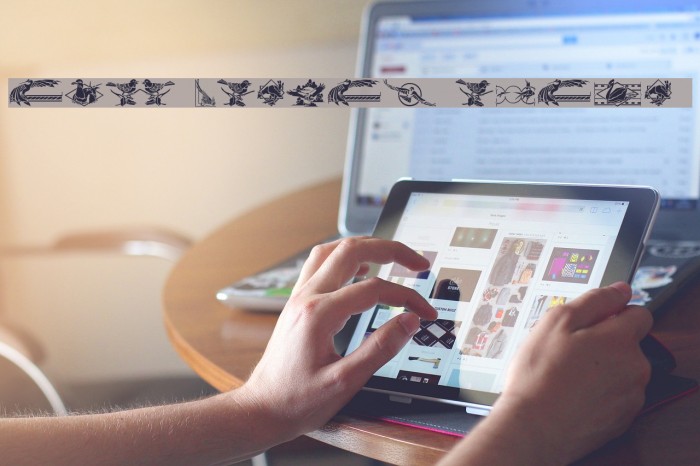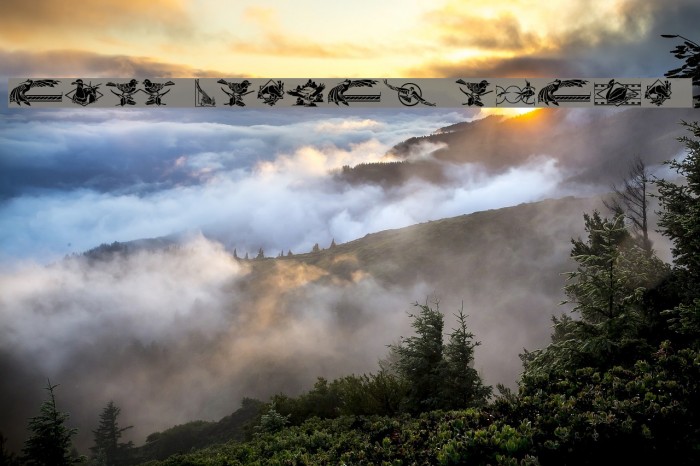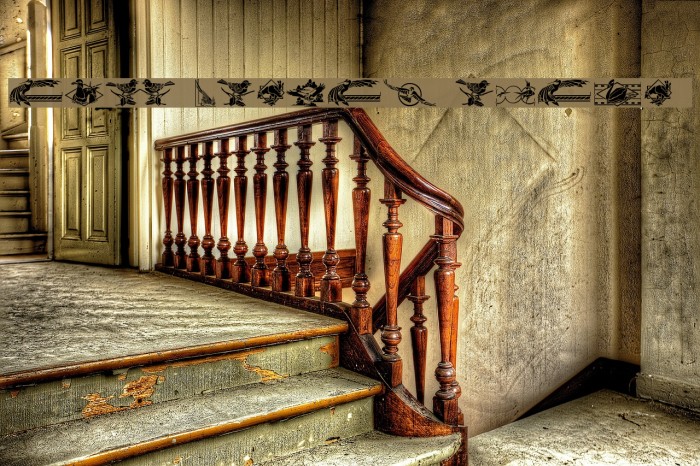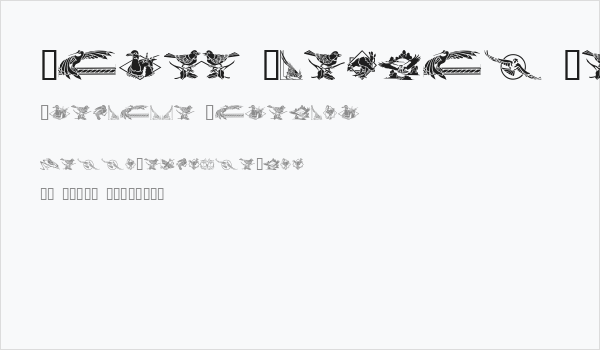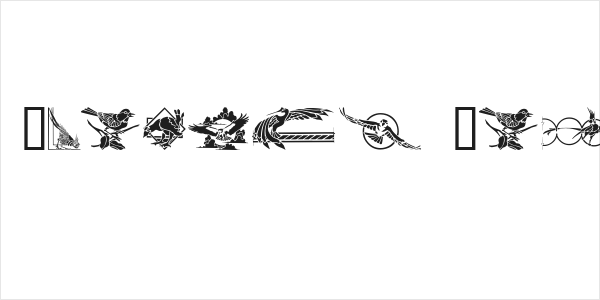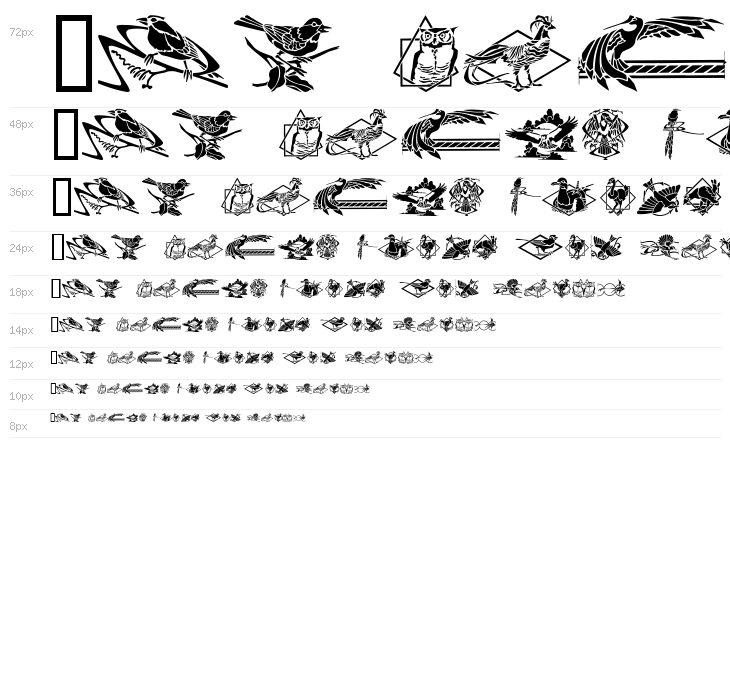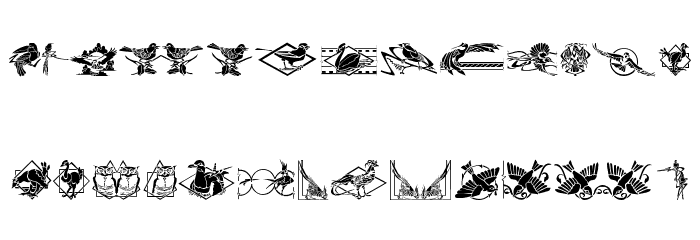
Bird Stencil Design II Font
Bird Stencil Design II Description
A decorative dingbat font featuring intricate bird and nature-themed stencil illustrations, each glyph showcasing a unique bird or floral motif with detailed linework and ornamental flourishes.
| Overall Style | Decorative, Nature-inspired, Ornamental |
| Use Case | Decorative elements, Borders, Craft projects, Themed graphics |
| Proposed Projects | Nature-themed invitations, scrapbooking, decorative borders, craft stencils, educational materials, greeting cards. |